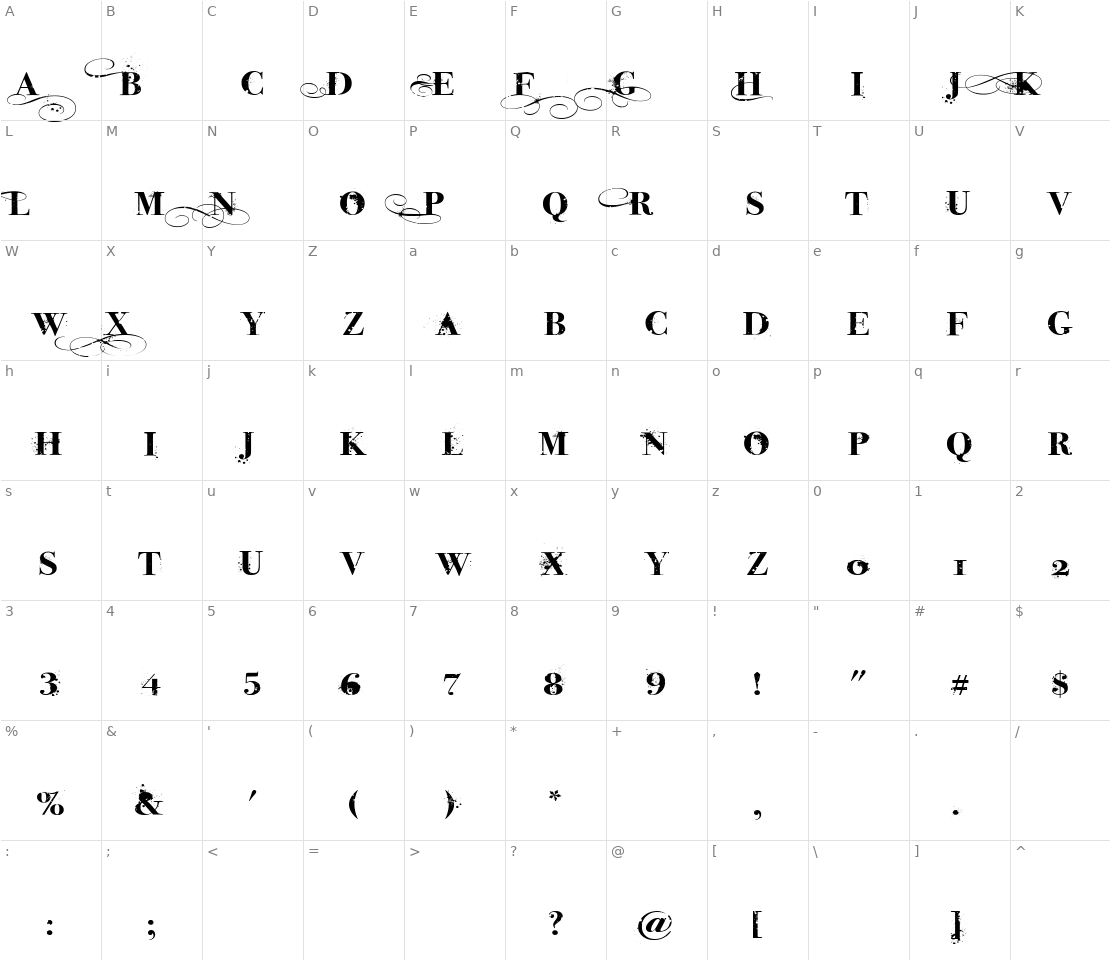
Inked God
Inked God is a bold, uppercase display face from Segments Design with heavy letterforms drenched in ink splatter and gritty distressing. The ornamental details and raw, messy edges give it a dark, almost ritualistic energy, like hand-stamped text on a weathered broadside or occult zine cover. Built for headlines, posters, and album art where the type itself needs to feel dangerous and lived-in.